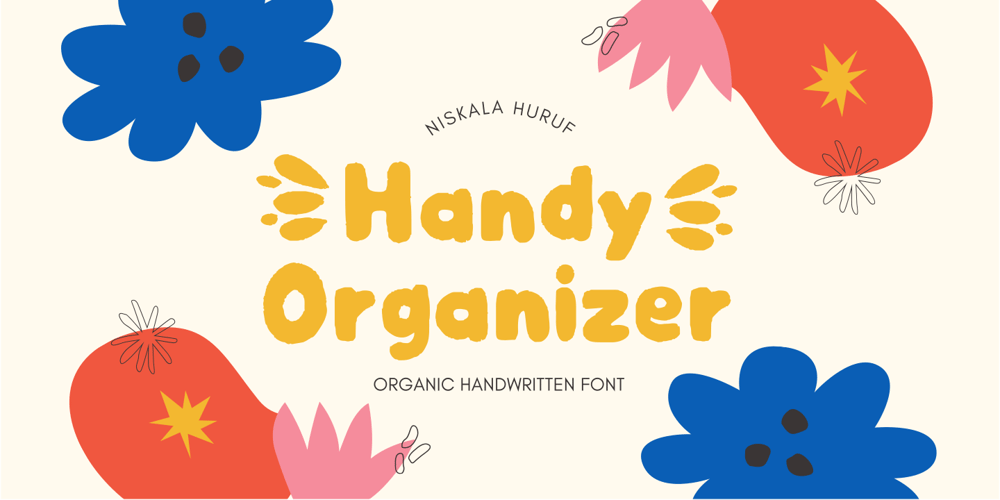
Handy Organizer Font Family was designed by Ali Hamidi and published by Ali Hamidi. Handy Organizer contains 1 styles and family package options. Handy Organizer is a fun and friendly display font. It can easily be matched to an incredibly large set of projects, so add it to your creative ideas and notice how it makes them stand out!